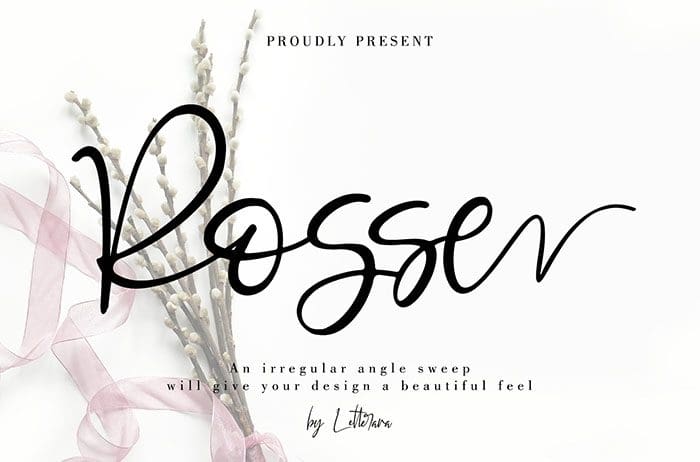
Free Rosse Script Font
Rosse Script Font
Free Rosse script font features an irregular baseline, making it the perfect font to give your designs a fun and unique feel! Created this font by Thomas Aradea. You can also search more freeĀ Fonts. Thanks!